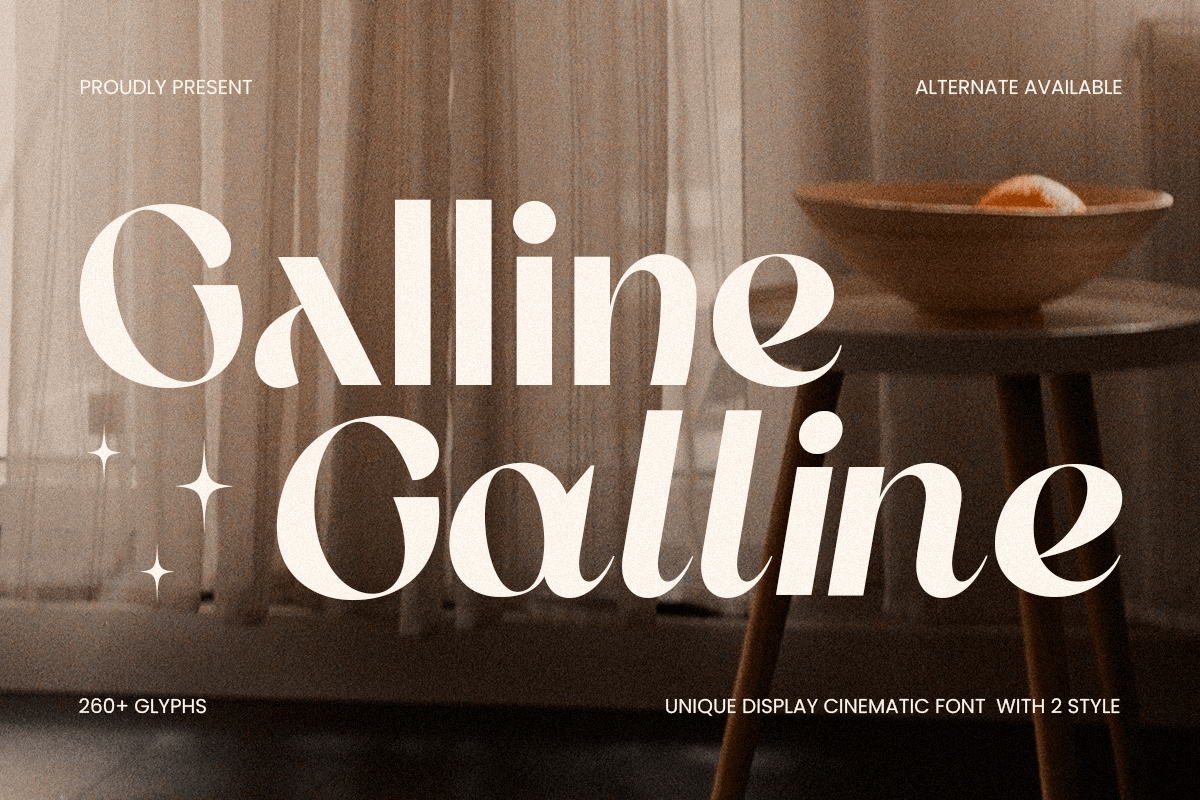
Galline
-Unique Display Cinematic Font
Galline - Unique Display Cinematic Font
Galline is a unique display cinematic font designed to captivate and leave a lasting impression. Its bold and artistic design is perfect for headlines, posters, and creative projects that demand attention.
Versatile and Striking for Any Project
With its stylish and modern appeal, Galline enhances designs for movie titles, branding, packaging, and more. Its unique aesthetic sets the tone for a professional yet artistic vibe.
Designed for Impact and Creativity
Galline combines sleek lines and distinctive details to make your typography stand out. It’s crafted for designers who seek to elevate their projects with a font that speaks volumes.
Galline - Unique Display Cinematic Font Features:
• Alternates Characters Ready
• Punctuation, Number, and Symbol